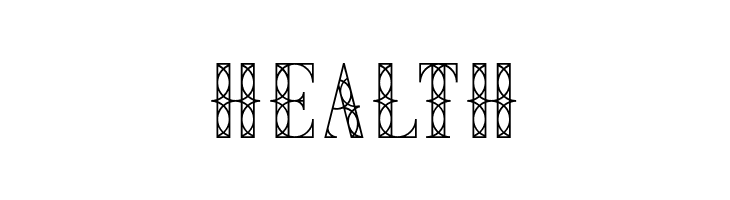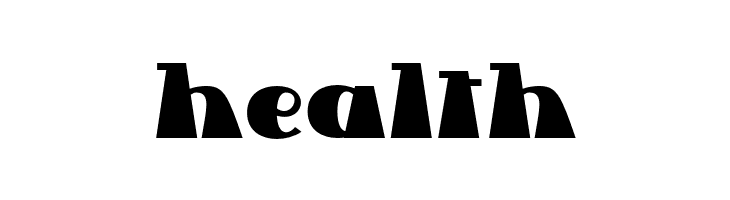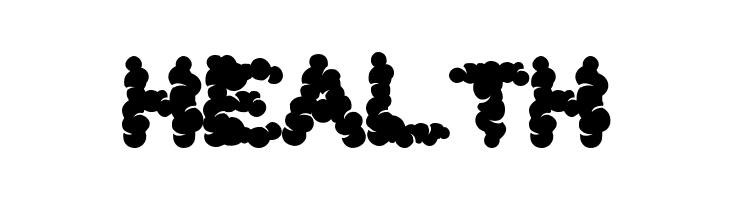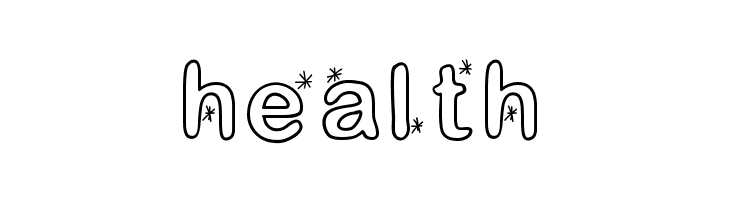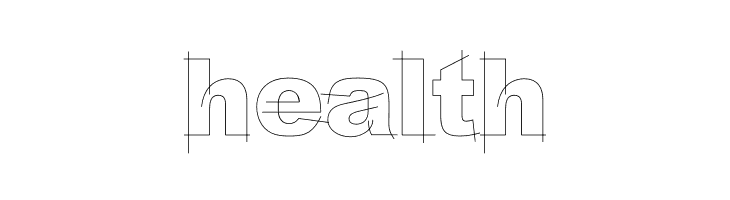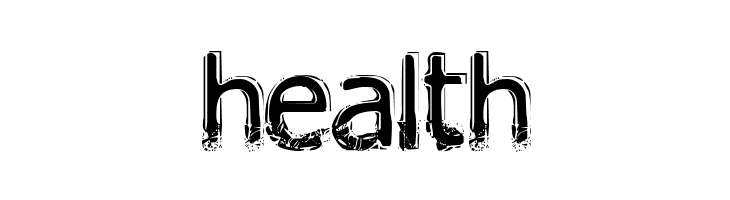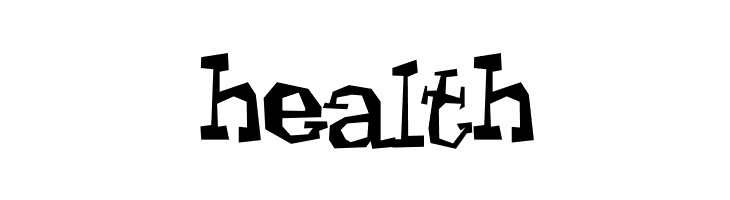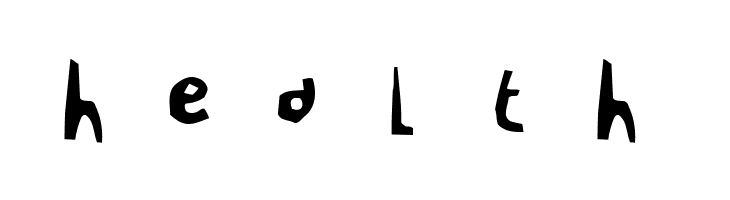
A bold, geometric font with sharp angles and a modern style.
A bold, dynamic font with angular strokes and a modern, energetic style.
A playful, quirky handwritten font with irregular shapes and varying strokes.
A decorative font with intricate lattice patterns and bold outlines.
A playful, cloud-like font with a bubbly and whimsical design.
A rounded, light-weight font with a clean and modern aesthetic.